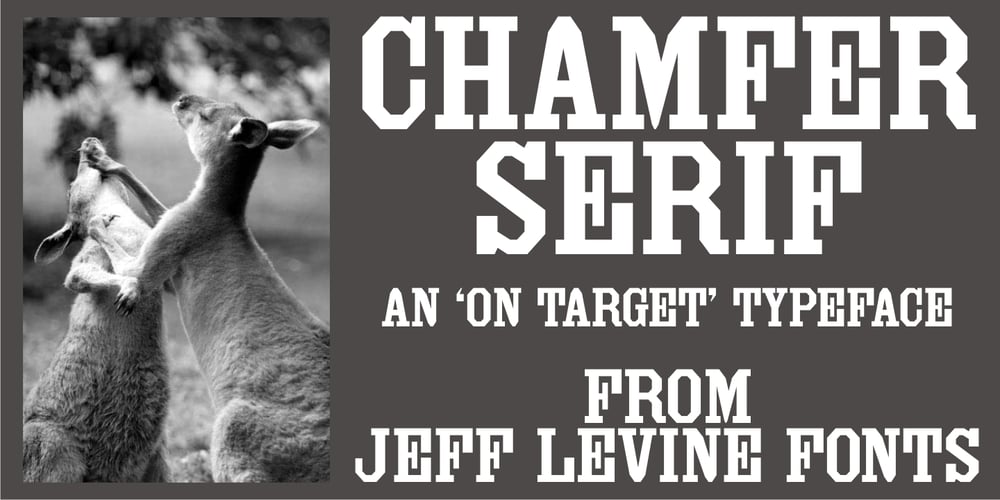
Chamfer Serif JNL
Chamfer Serif JNL font
Chamfer Serif JNL Font Family was designed by Jeff Levine and published by Jeff Levine. Chamfer Serif JNL contains 1 styles and family package options. A set of vintage wood type printing blocks yielded the alphabet which was to become Chamfer Serif JNL. With its heavy vertical serifs and interesting character shapes, the design is unique when compared to the more familiar wood type offerings of the past.